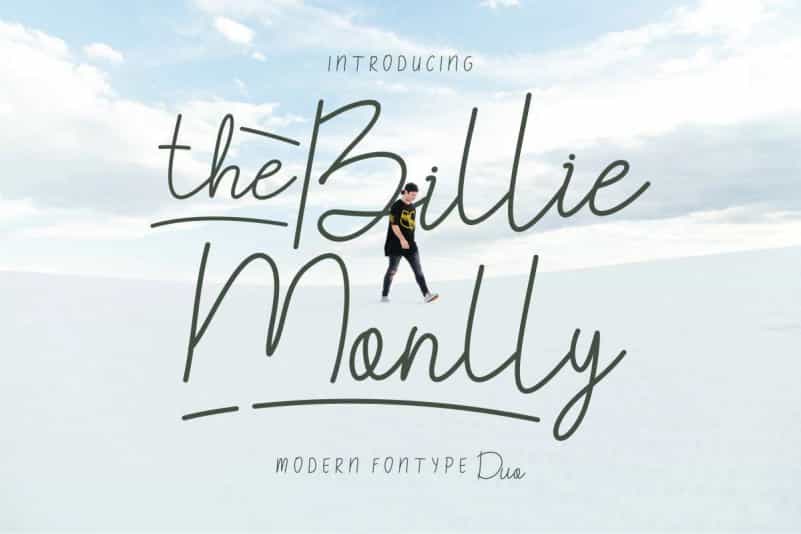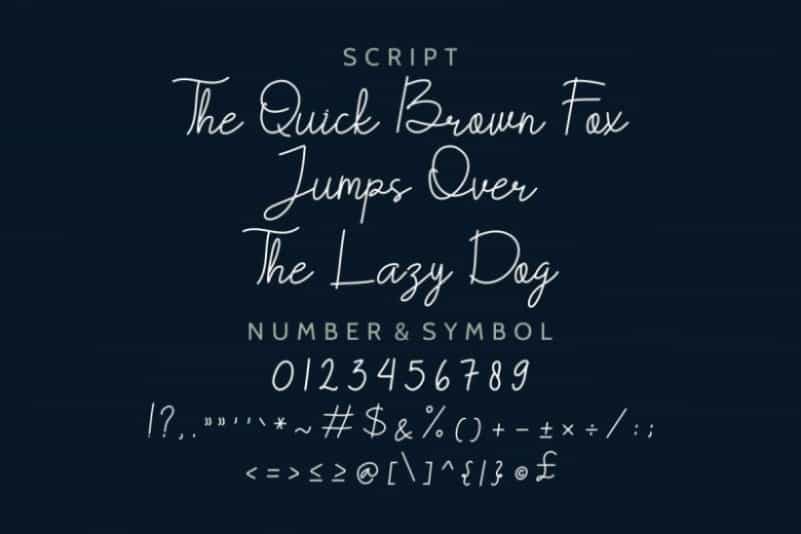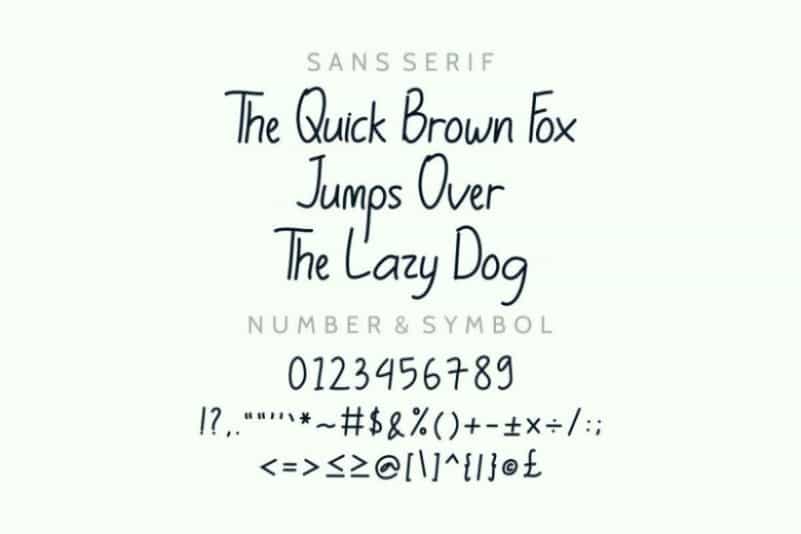
Discover The Billie Monlly Font Duo, part of the Sans Serif Handwritten collection—a versatile and unique font perfect for adding a personal touch to your projects. Download it for free and enjoy crafting designs with style, from invitations to social media posts. This font is available exclusively for personal use, giving you the freedom to create without limits. Unlock your creativity with The Billie Monlly Font Duo today!
Billie Monlly is a font family that has individual glyphs. It has two styles : Script Handwritten and Sans-Serif. On the package.